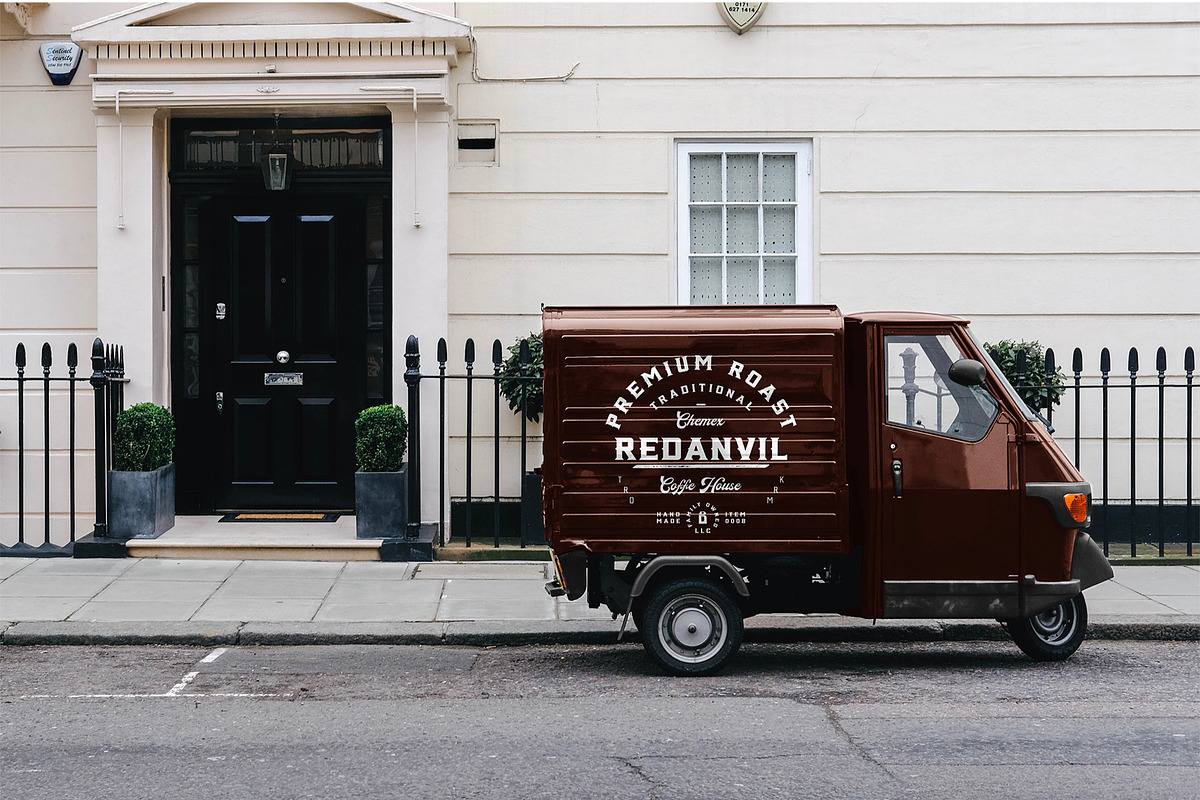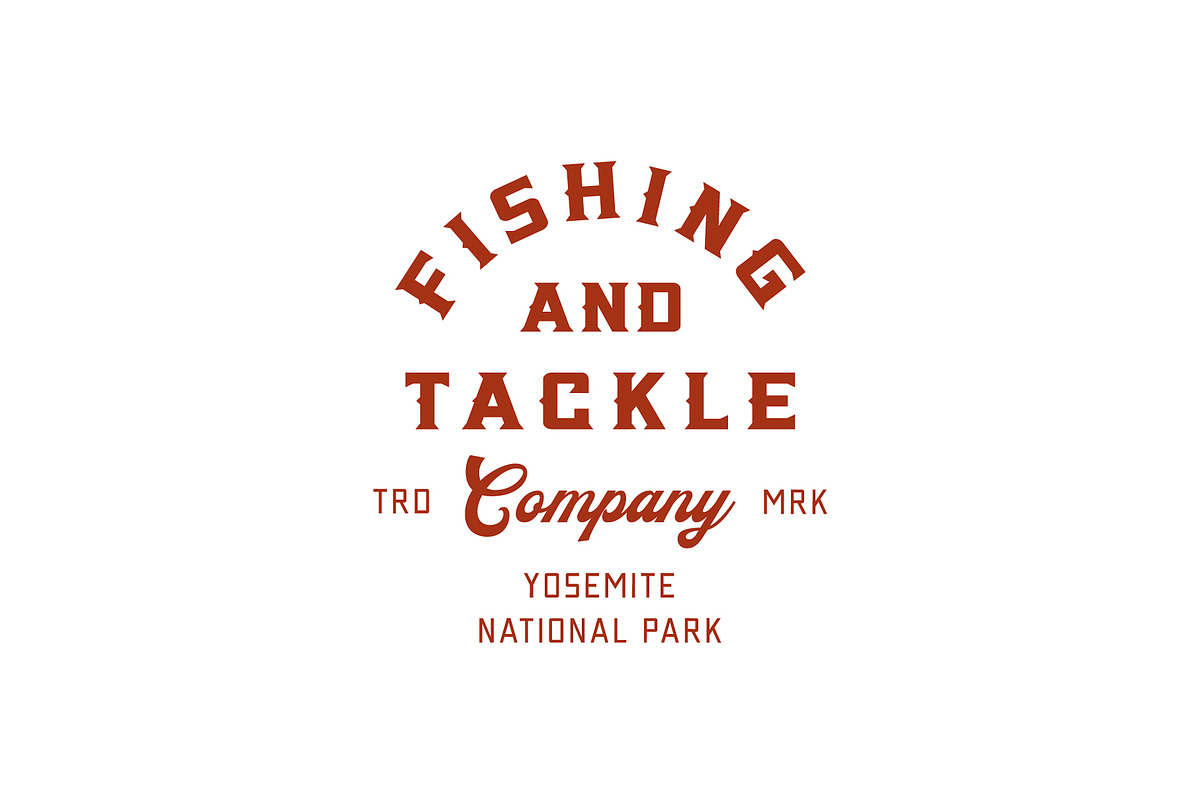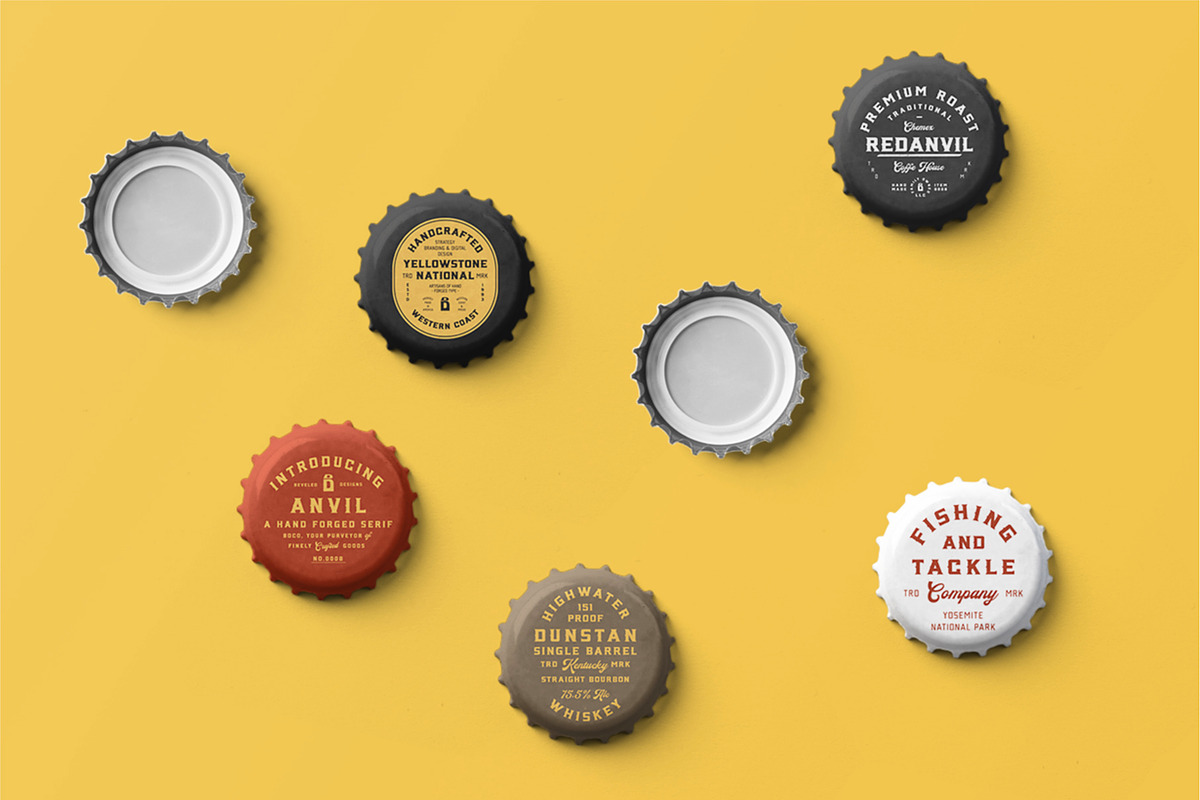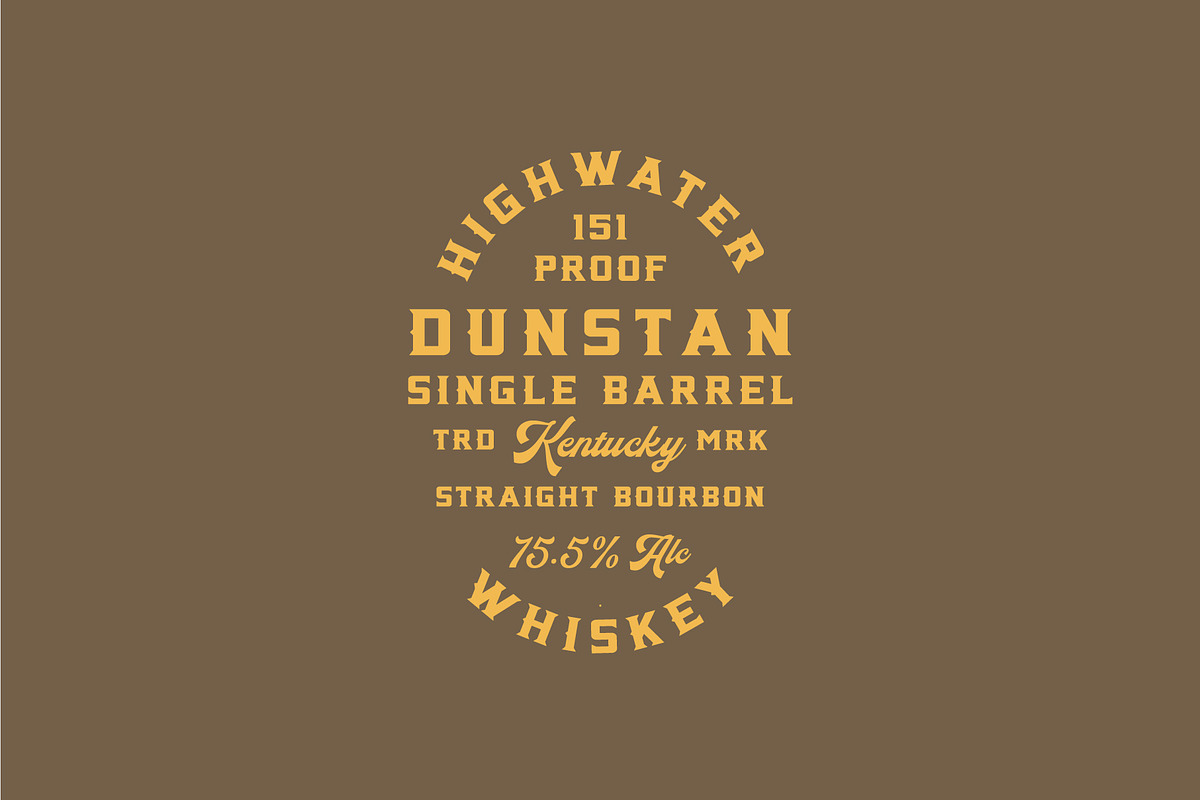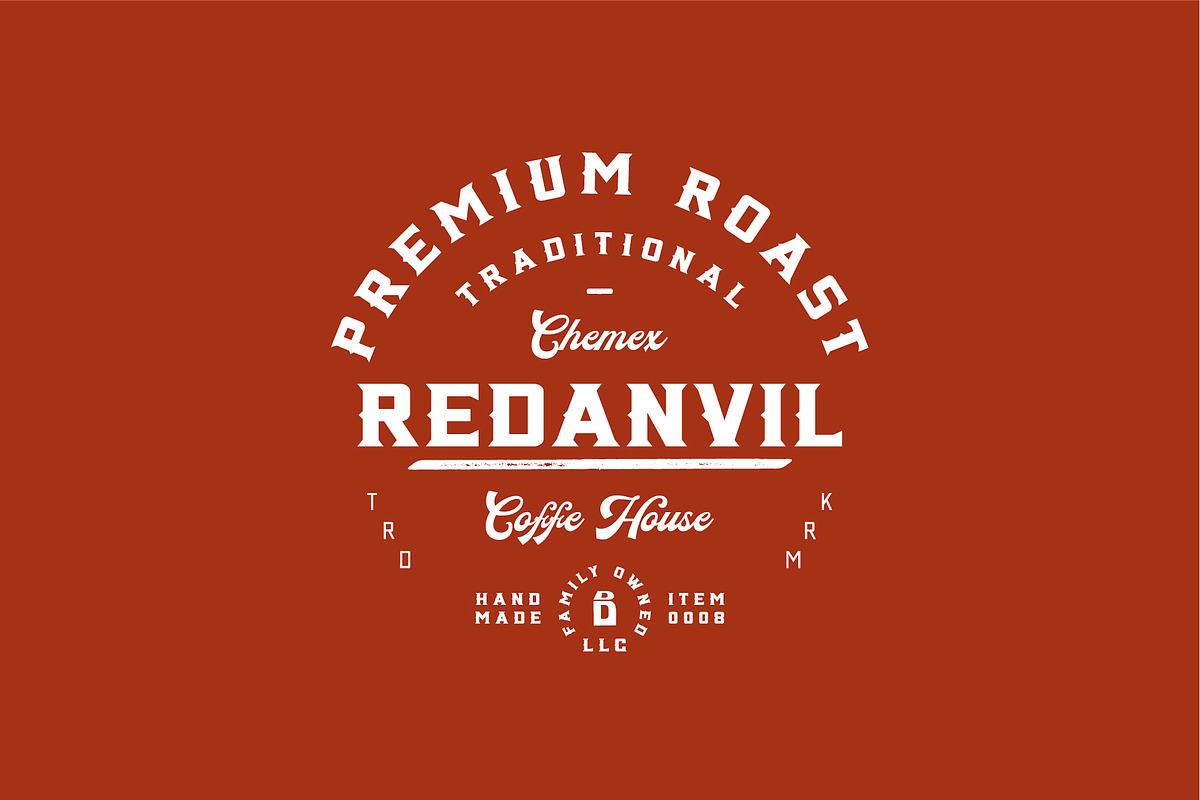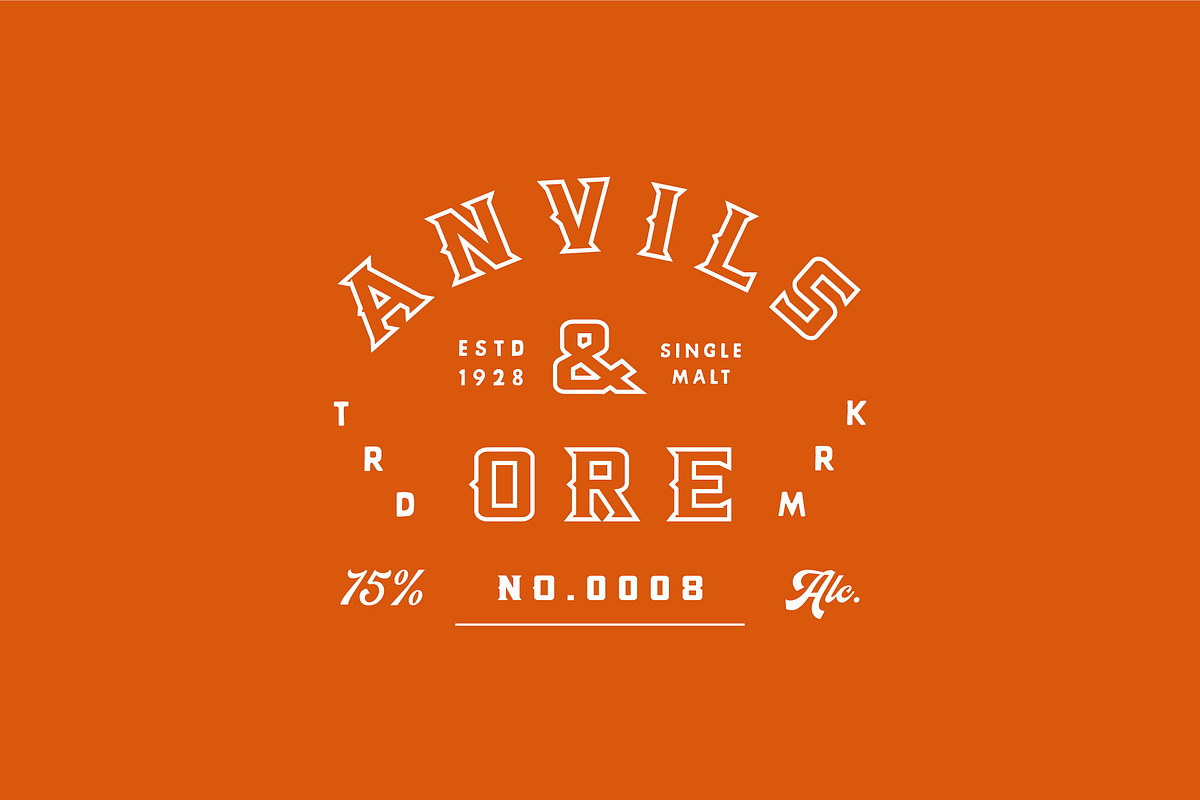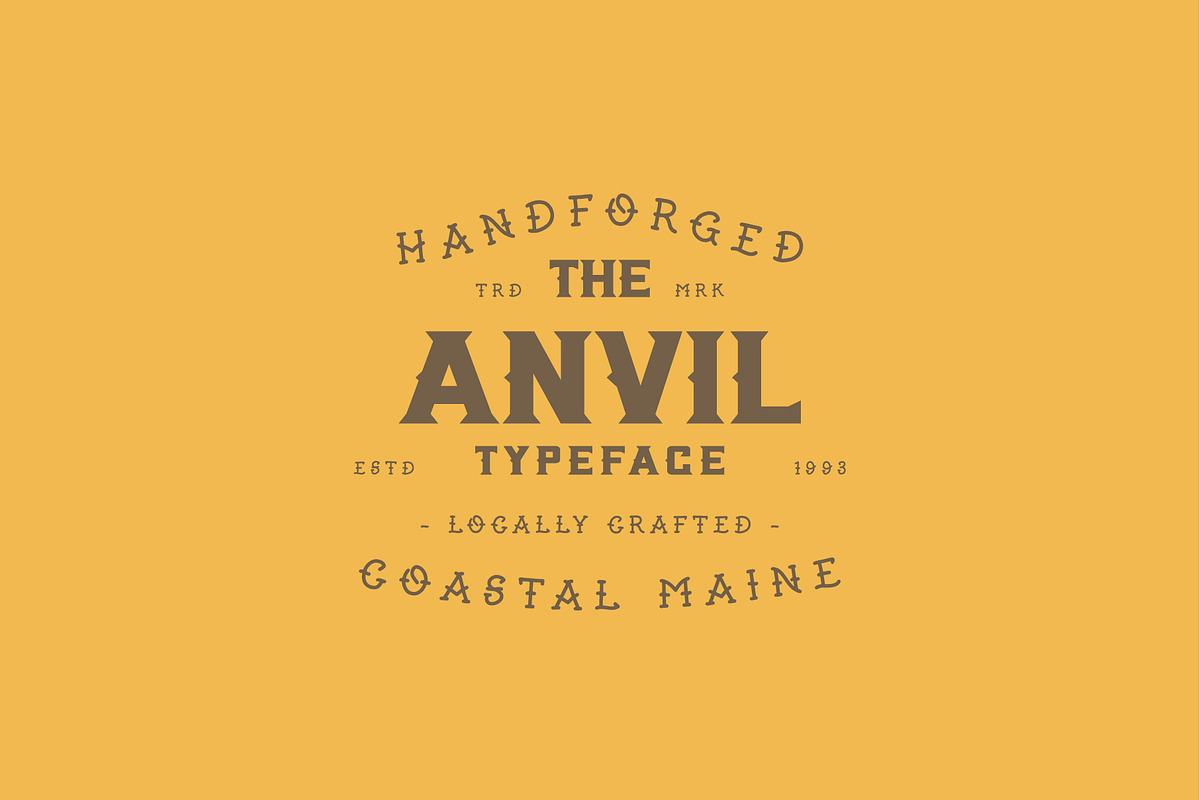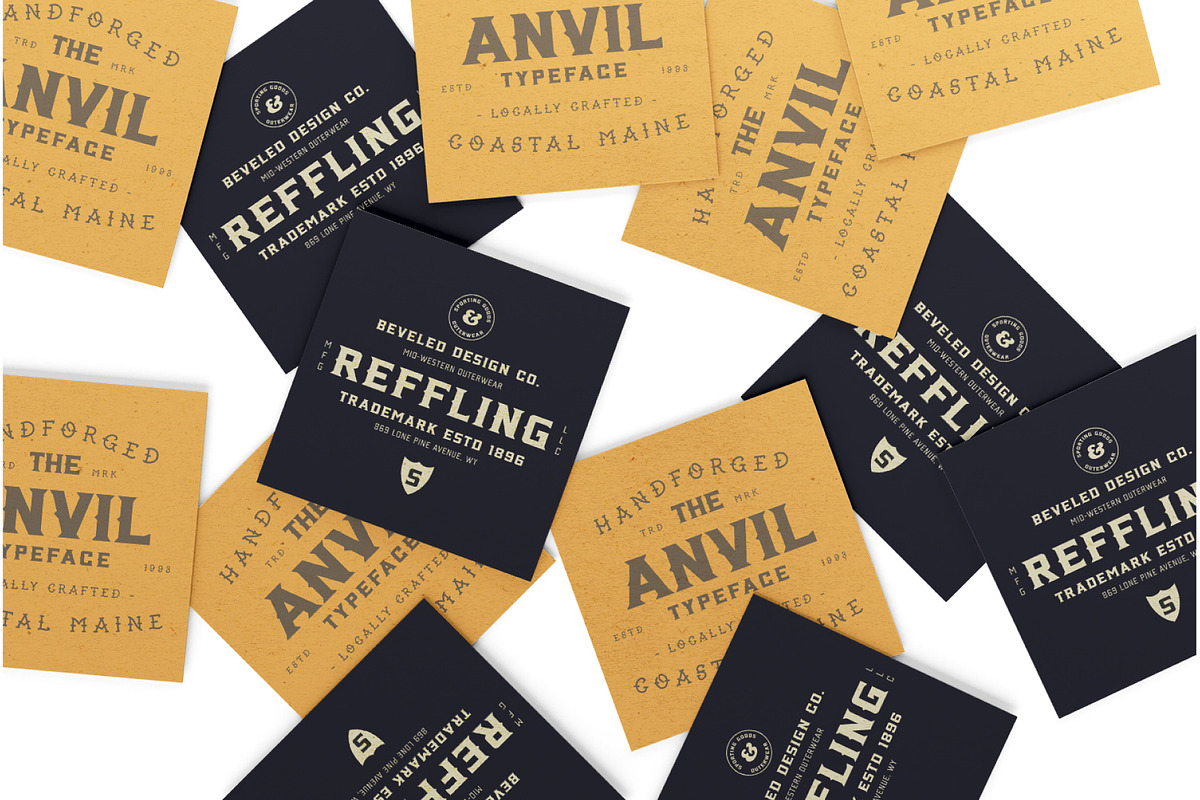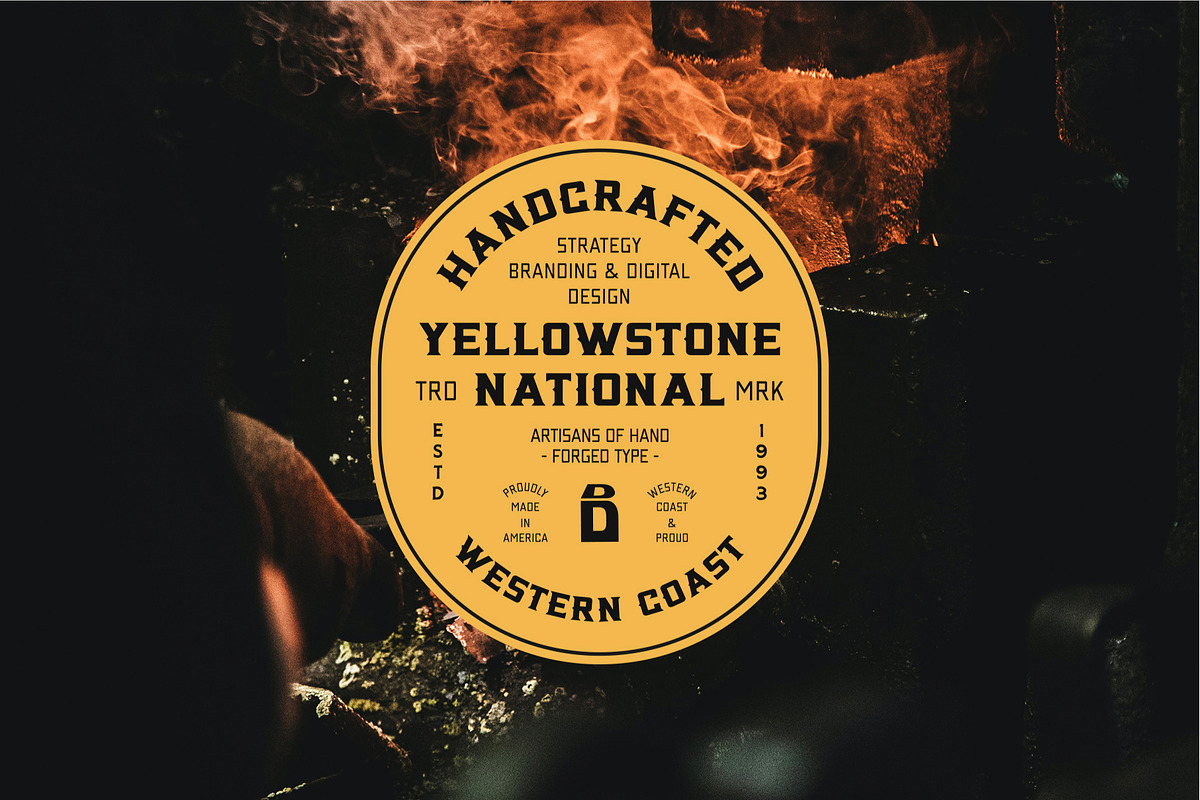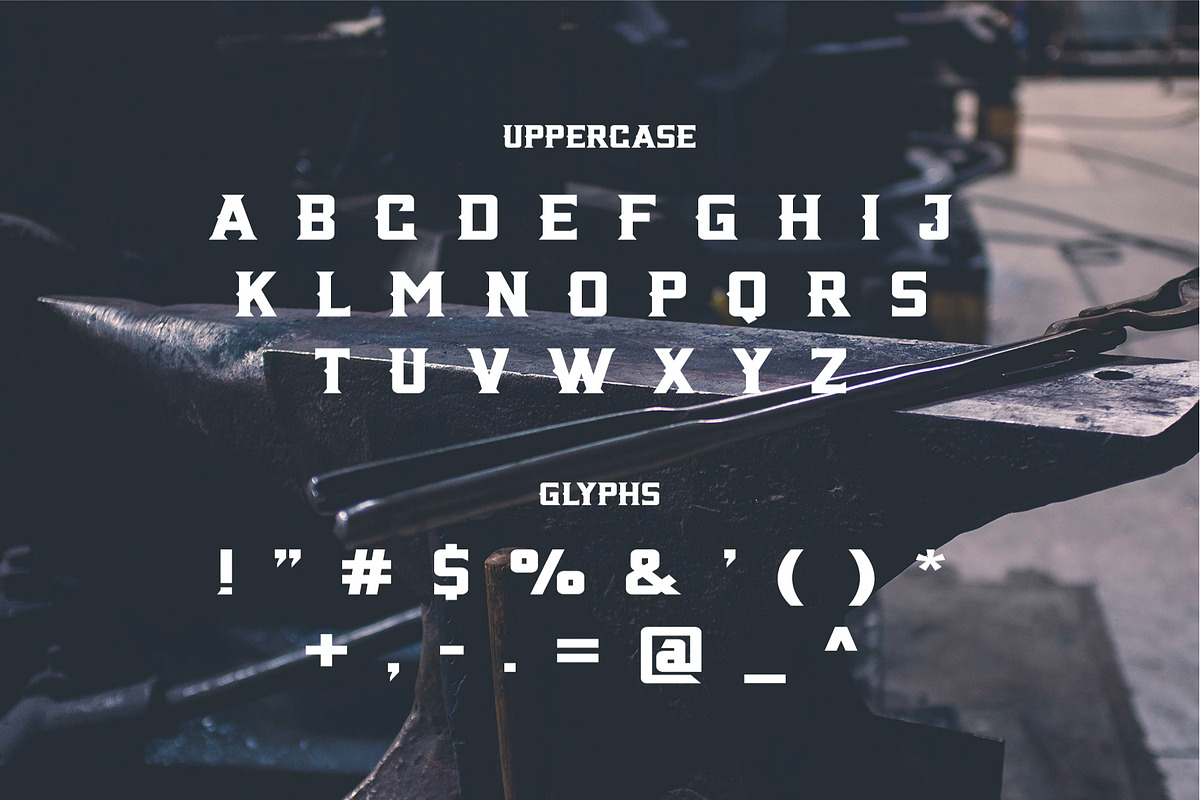
Anvil | Hand Forged Serif
Anvil is a hand forged vintage serif typeface. Sharp, precise and hand forged, Anvil is a versatile and strong font. Thick caps and sharp serifs are effective in a variety of stylistic endeavors. This font is perfect for any brand looking for a nostalgic aesthetic. The forged, heavy-lined construction lends a anachronistic durability, tempered with precise edges and impactful forms.
A hand forged vintage serif : Nostalgic & Durable